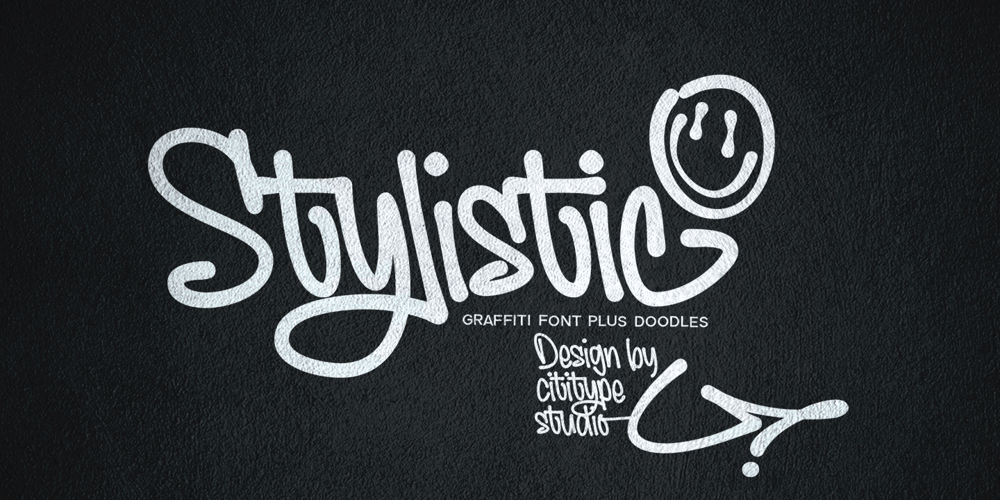
Stylistic
Stylistic font
Stylistic Font Family was designed by Muhammad Ridha Agusni, Siti Saribanon Nurjannah and published by Cititype. Stylistic contains 2 styles and family package options. Stylistic is a font inspired by street graffiti. We added a side of softness and feminism so that it looks more casual and chic. This font is suitable for logos, quotes, watermark photography, headers, banners, prints and brands for handmade products.This font equipped with opentype features such as ligatures and alternates, we also added a single font which we named Stylistic extra doodle. There are 52 doodles that appear from each of the Uppercase and Lowercase glyphs. just type A-Z and a-z then the doodle appears. This will enrich the feel of graffiti to your design and make it worth having.